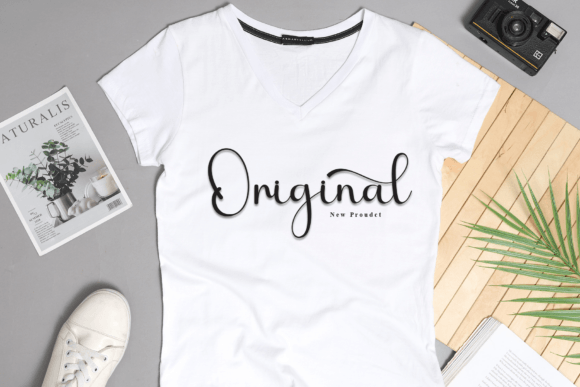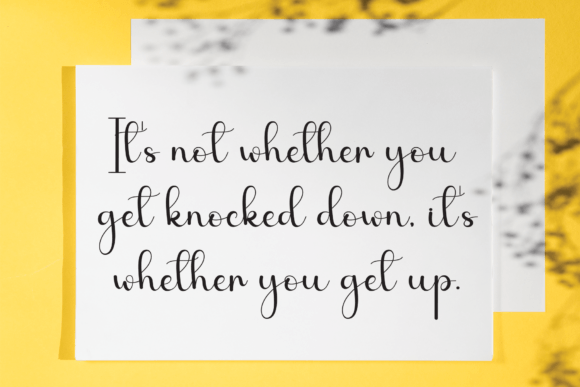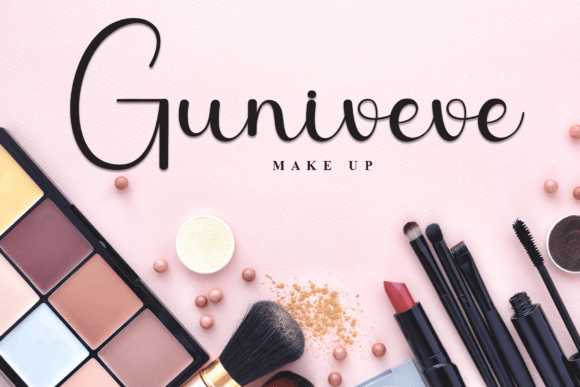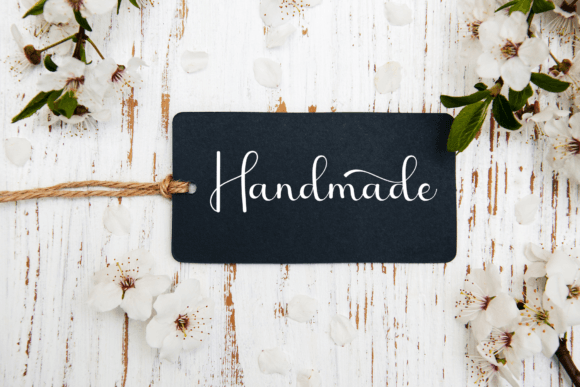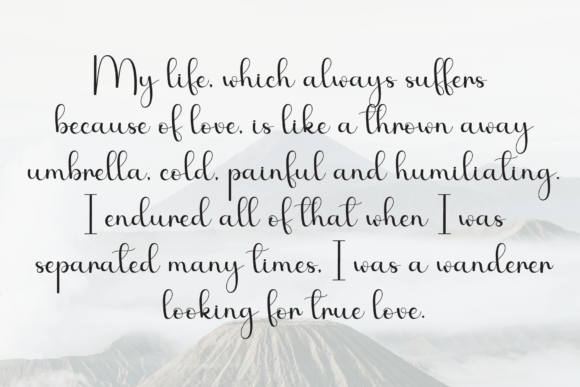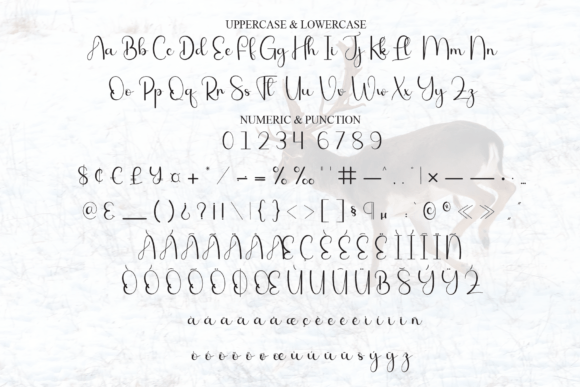
Introduction to Quick Reindeer Font
Have you ever found yourself stuck in a creative rut, searching for the perfect design element to elevate your project? Perhaps it was a holiday card, a wedding invitation, or a simple greeting that needed a dash of personality. As designers, we know the importance of a high-quality design resource that can add that extra sparkle to our creative endeavors.
That’s where the Quick Reindeer Font comes in – a charming handcrafted display font that’s sure to bring a sense of fun and warmth to any design. With its friendly and approachable vibe, this delightful font is perfect for designers seeking a jolly and sprightly touch to their work.
Whether you’re working on a new design project or just need a free download to add some festive flair, the Quick Reindeer Font is a valuable addition to any design toolkit. And with its transparent background, you can easily integrate it into your design without any hassle.
Key Features of Quick Reindeer Font
- High-quality, vector-based design resource ideal for creative projects
- Unique, hand-drawn design featuring transparent background for versatile use
- Perfect for holiday-themed projects, logos, and branding materials
- Available in 4 different font styles, each with its own unique characteristics
Honest Review: Quick Reindeer Font
I recently stumbled upon the Quick Reindeer Font and was excited to give it a try. As a designer, I’m always on the lookout for high-quality design resources that can elevate my creative projects. This font definitely delivers.
- High-quality design: The Quick Reindeer Font is well-designed and visually appealing, making it perfect for a variety of creative projects.
- Transparent background: The transparent background option allows for seamless integration with other design elements.
While I was impressed with the Quick Reindeer Font, I did encounter a few limitations. The font is a bit limited in terms of customization options, and it may not be suitable for more complex design projects.
Overall, I’m happy with the Quick Reindeer Font and would recommend it to designers looking for a high-quality, free design resource. It’s perfect for smaller projects or those looking for a unique touch. However, for more complex designs, you may want to consider a paid font option.
Tips for Getting the Most Out of Quick Reindeer Font
Use the Quick Reindeer Font in combination with other design elements to create a unique and eye-catching design.
Experiment with different font sizes, colors, and styles to find the perfect combination for your creative project.
The Quick Reindeer Font is perfect for holiday-themed designs, such as Christmas cards and gift tags.
It’s also great for adding a playful touch to children’s designs, such as birthday invitations and party decorations.